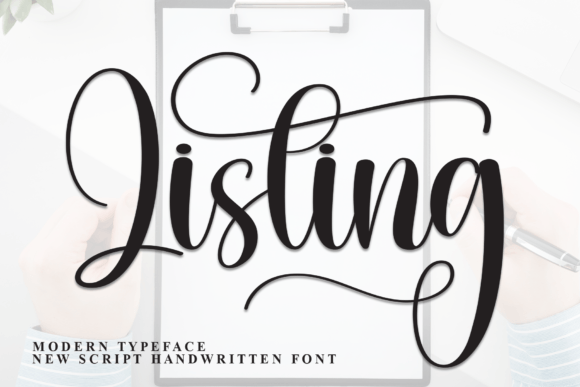
Listing Font: A Charming Blend of Bold and Thin Handmade Letters
When it comes to creating visually appealing designs, typography plays a crucial role. The right font can elevate your project and make it stand out from the crowd. If you’re looking for a unique and eye-catching font, look no further than Listing Font. This charming font features a blend of bold and thin handmade letters, perfect for adding a personal touch to your designs.
What is Listing Font?
Listing Font is a carefully crafted font that combines the elegance of thin letters with the boldness of thicker ones. This contrast creates a visually appealing effect that can add depth and interest to your designs. The font is handmade, giving it a personal and unique feel that’s hard to replicate with computer-generated fonts.
Key Features of Listing Font
- Handmade with love: Each letter has been carefully crafted by hand, giving the font a personal and unique feel.
- Blend of bold and thin letters: The font combines bold and thin letters, creating a visually appealing contrast that adds depth to your designs.
- Perfect for creative projects: Listing Font is ideal for designers, artists, and crafty people who want to add a personal touch to their work.
- Easily readable: Despite its unique style, the font is easy to read, making it perfect for use in a variety of applications.
What Makes Listing Font So Special?
So, what sets Listing Font apart from other fonts? For starters, its handmade nature gives it a unique character that’s hard to find in computer-generated fonts. The blend of bold and thin letters also creates a visually appealing effect that’s sure to grab attention. Additionally, the font’s readability makes it versatile and easy to use in a variety of applications.
The Benefits of Using Listing Font
Using Listing Font in your designs can have a number of benefits. Here are just a few:
- Adds a personal touch: The handmade nature of the font gives it a personal feel that’s hard to replicate with computer-generated fonts.
- Creates visual interest: The contrast between bold and thin letters creates a visually appealing effect that can add depth and interest to your designs.
- Versatile: The font’s readability makes it easy to use in a variety of applications, from headings and titles to body text.
- Unique: The font’s unique style sets it apart from more traditional fonts, making it perfect for designers who want to stand out from the crowd.
How to Use Listing Font in Your Designs
Listing Font is easy to use and can be incorporated into a variety of design applications. Here are a few tips for using the font in your designs:
Tips for Using Listing Font
- Use it for headings and titles: The font’s bold and thin letters make it perfect for use in headings and titles.
- Mix it with other fonts: Listing Font pairs well with other fonts, making it easy to create visually appealing combinations.
- Experiment with colors: The font’s unique style looks great in a variety of colors, so don’t be afraid to experiment and find the perfect hue for your design.
- Use it for body text: While the font is perfect for headings and titles, it’s also easy to read, making it suitable for use in body text.
Who is Listing Font For?
Listing Font is perfect for a variety of designers, artists, and crafty people. Here are a few examples of who might benefit from using this unique font:
Who Can Benefit from Listing Font
- Graphic designers: Graphic designers can use Listing Font in a variety of applications, from branding and packaging to web design and social media graphics.
- Artists and illustrators: Artists and illustrators can use the font to add a personal touch to their work, from sketchbooks and journals to prints and posters.
- Crafty people: Crafty people can use Listing Font in a variety of craft projects, from scrapbooking and card making to DIY signs and decor.
- Small business owners: Small business owners can use the font to create visually appealing branding and marketing materials, from business cards and brochures to social media graphics and website headers.
Listing Font is a unique and eye-catching font that features a charming blend of bold and thin handmade letters. Its handmade nature gives it a personal feel that’s hard to replicate with computer-generated fonts, making it perfect for designers, artists, and crafty people who want to add a personal touch to their work. With its versatility, readability, and visually appealing contrast, Listing Font is sure to become a favorite in your design arsenal.